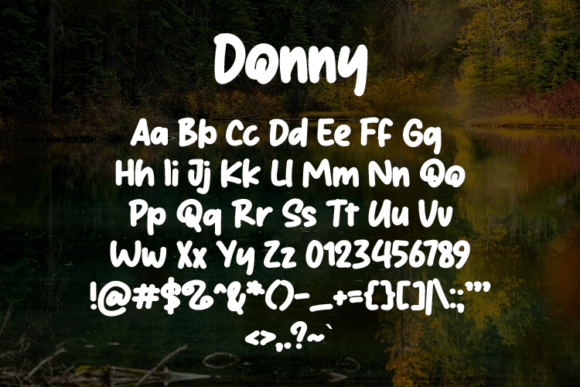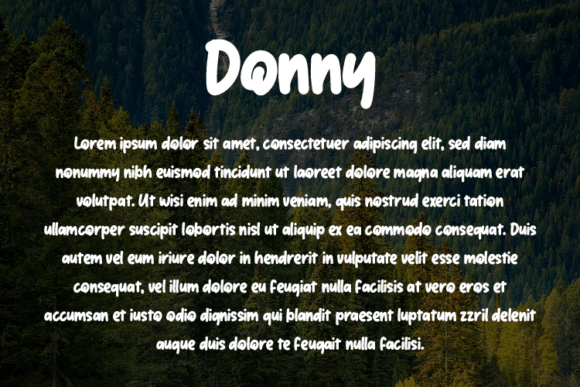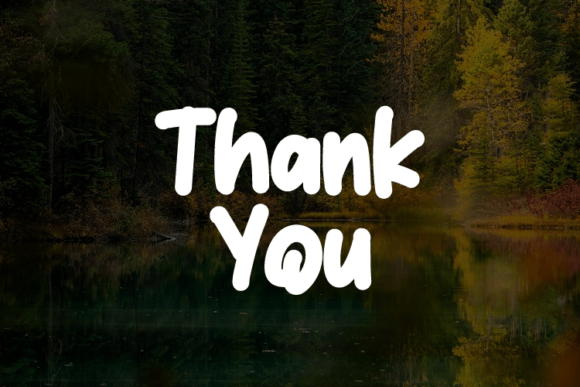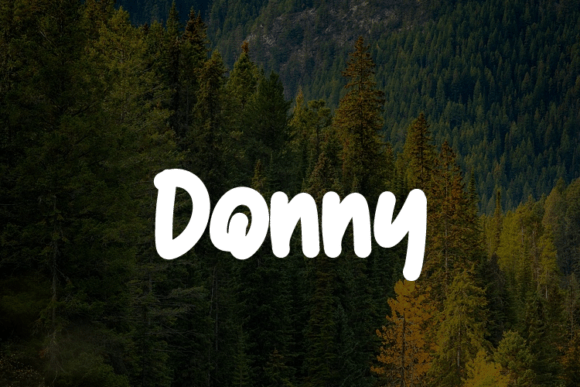
Discover the Elegance of Donny Font: A Modern Typeface for Versatility and Readability
In the world of typography, the right font can elevate your design, making it more engaging, readable, and aesthetically pleasing. For designers, crafters, and anyone looking to add a touch of sophistication to their projects, the Donny Font stands out as an exceptional choice. This modern and elegant typeface is not only versatile but also designed to offer excellent readability across a wide range of media. In this article, we’ll explore the features, benefits, and uses of the Donny Font, highlighting why it’s becoming a favorite among design enthusiasts.
Introduction to Donny Font
Donny is a contemporary typeface that has been crafted with both functionality and beauty in mind. Its sleek lines, balanced proportions, and elegant curves make it an ideal font for various design projects, from digital media to print materials. Whether you’re working on a branding project, creating a website, designing a brochure, or crafting a social media graphic, Donny Font provides the perfect blend of style and legibility.
Key Features of Donny Font
- Modern and Elegant Design: Donny boasts a modern aesthetic with elegant strokes and a clean look. Its design ensures that your text is not only readable but also visually appealing, adding a professional touch to your projects.
- Excellent Readability: Readability is crucial for any font, and Donny excels in this area. Its clear and well-defined characters make it easy to read, even at smaller sizes, which is particularly beneficial for body text and longer content.
- Versatility: Donny Font is incredibly versatile, suitable for a wide range of applications. From headings and titles to body text, it maintains its elegance and readability, making it a go-to font for designers.
Applications of Donny Font
The versatility of Donny Font makes it suitable for various design projects. Here are some of the areas where Donny Font can make a significant impact:
- Branding and Logo Design: For creating a brand identity, the font you choose can be pivotal. Donny Font’s modern and elegant look makes it an excellent choice for logos, as it can convey sophistication and professionalism.
- Web Design: In web design, typography plays a crucial role in user experience. Donny Font’s readability and aesthetic appeal make it perfect for website content, enhancing the overall look and feel of your site.
- Print Materials: Whether you’re designing brochures, flyers, posters, or business cards, Donny Font offers the elegance and clarity needed to make your print materials stand out.
- Digital Media: For digital content such as social media graphics, email newsletters, and digital magazines, Donny Font provides a consistent and professional look that engages readers.
Why Choose Donny Font?
Choosing the right font for your project can be overwhelming, given the numerous options available. However, Donny Font stands out for several reasons:
- Timeless Appeal: Unlike trendy fonts that may quickly become outdated, Donny’s classic elegance ensures it remains relevant for years to come.
- Professionalism: The clean and modern design of Donny Font lends a professional touch to any project, making it suitable for businesses and individuals looking to make a strong impression.
Donny Font is a versatile, modern, and elegant typeface designed to meet the needs of designers and crafters. Its excellent readability, cross-platform compatibility, and timeless appeal make it an ideal choice for a wide range of design projects. Whether you’re working on branding, web design, print materials, or digital media, Donny Font offers the perfect combination of style and functionality. By choosing Donny Font, you’re not just selecting a typeface; you’re elevating your design to new heights of elegance and professionalism.